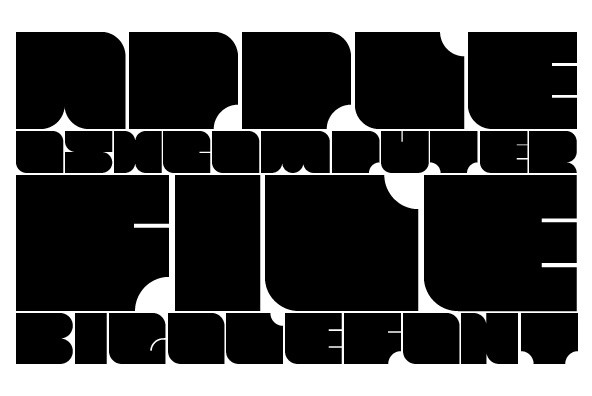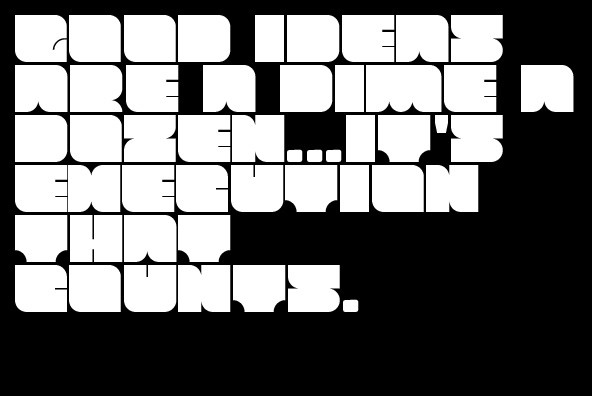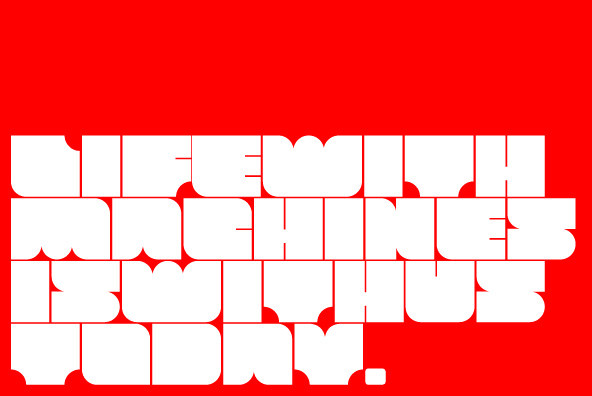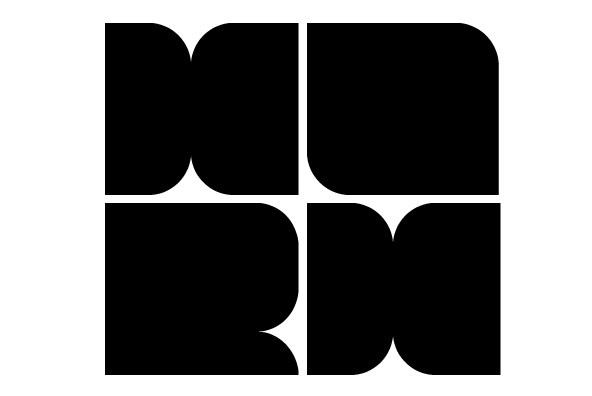
Blou Blou Blou
Blou is a block-constructed font which is applicable for any type of graphic design - web, print, motion graphics etc and perfect for t-shirts and other items. The font includes a filled counters of the extra black cut, with some differences such as contextual ligatures, optimized kerning and hinting.